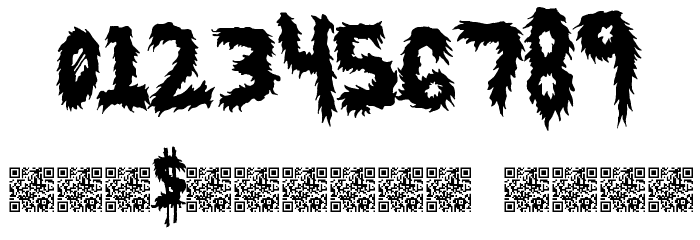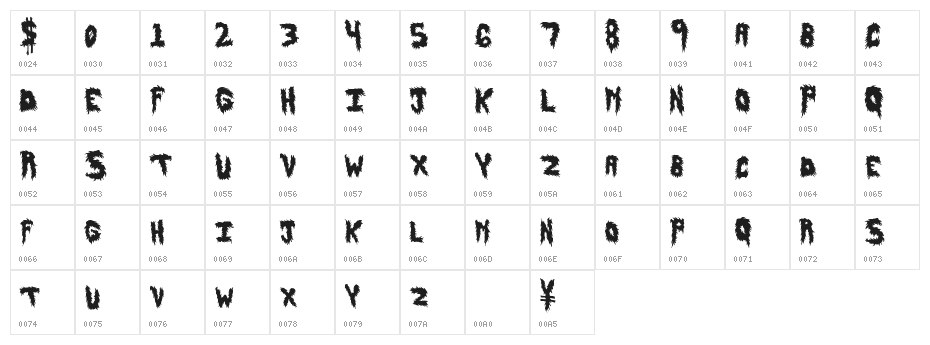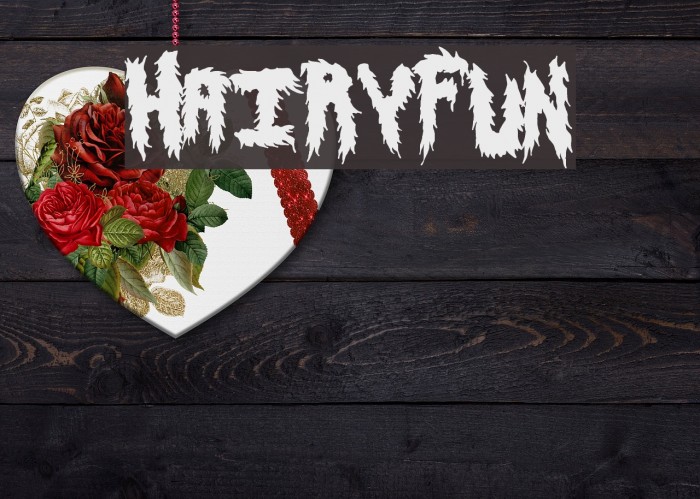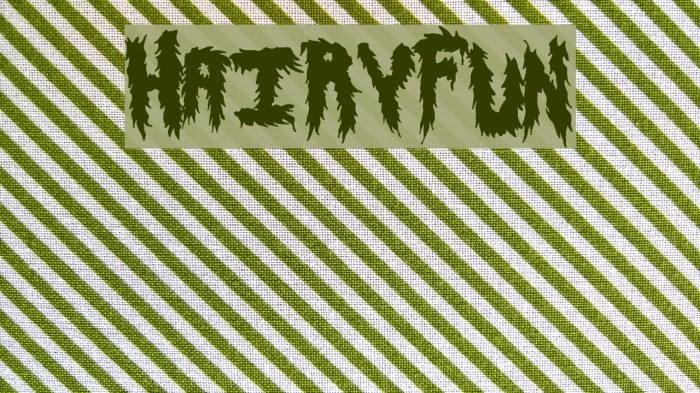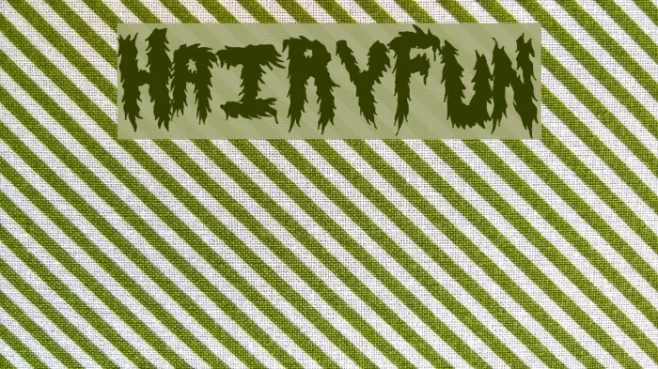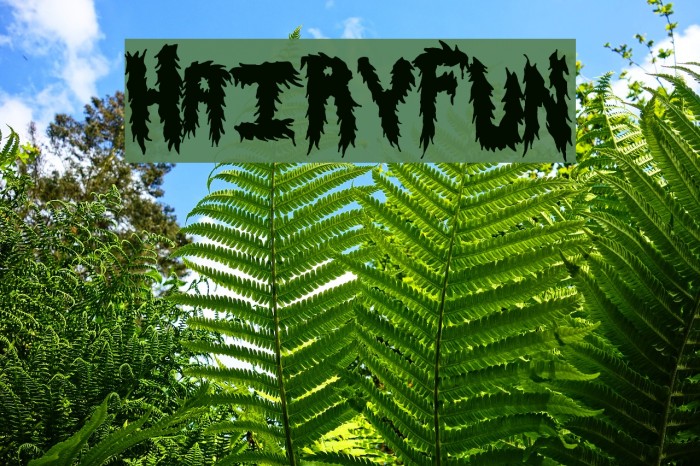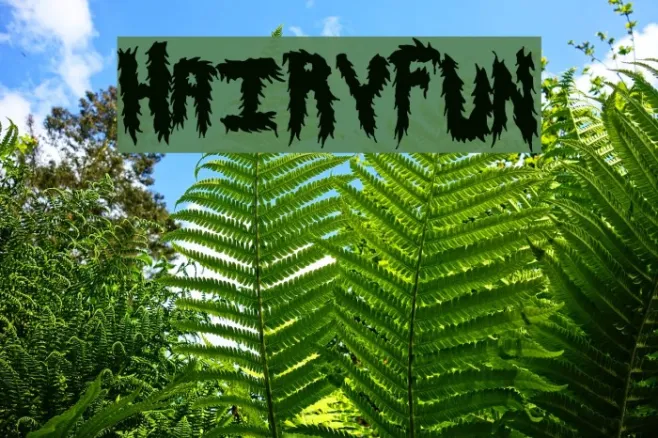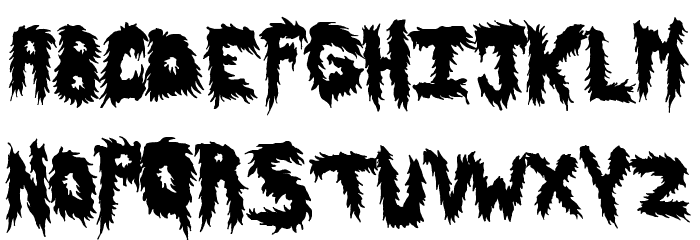
HairyFun Font
HairyFun Description
This font features a wild, jagged design that mimics the appearance of hair or fur, giving it a unique and edgy look. The characters are bold and heavily stylized, with irregular edges that create a sense of movement and chaos. This font is highly decorative and is best suited for projects that require a standout, eye-catching typeface. The uppercase and lowercase letters maintain a consistent style, while the numbers and special characters are equally dynamic and engaging. Overall, this font exudes a playful yet intense vibe, making it ideal for creative and unconventional designs.
| Proposed Projects | Perfect for Halloween-themed designs, edgy posters, album covers, or any project needing a bold, unconventional typeface. |